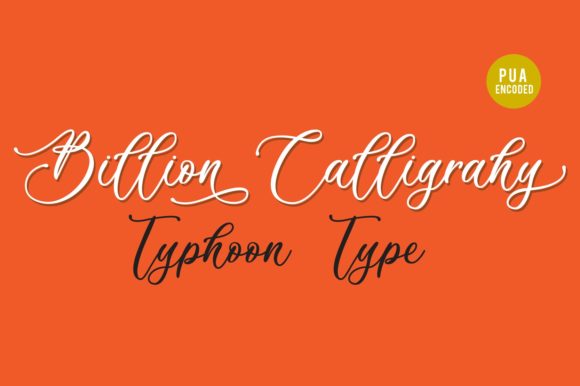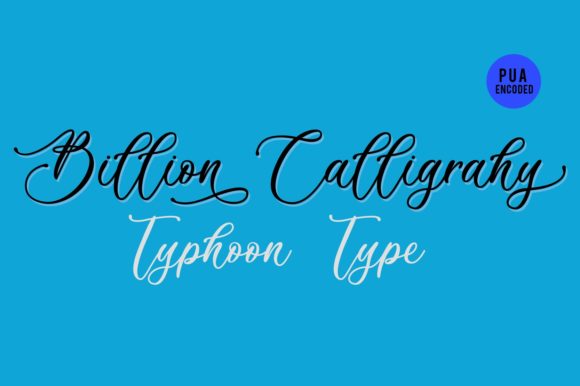
Billion Calligraphy Font
About Billion Calligraphy Font
Billion Calligraphy is a stunning script with a classic feel. Use it to add an authentic vibe to any design project.